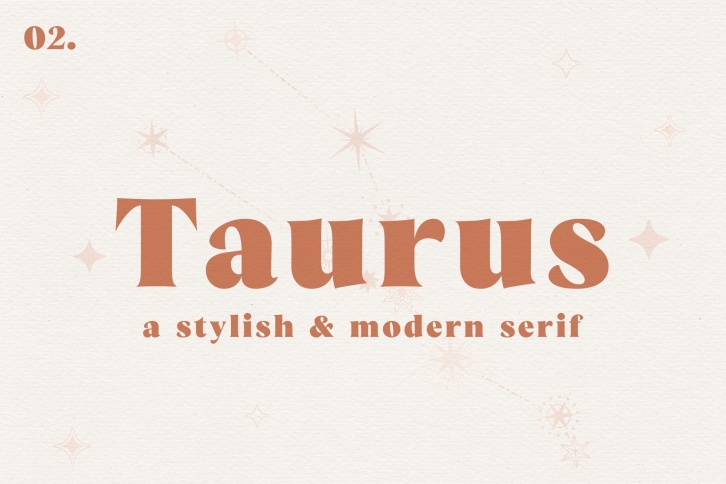
Taurus is a stylish and modern serif font. Perfect for branding, logo design, web design, packaging, social media, and so much more!
- Upper and lowercase letters
- Numbers and punctuation
- Accented characters for the international designer